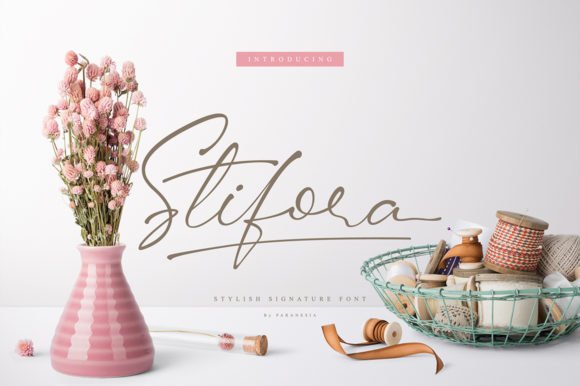
Stifora Script Font
Start a new day with a romantic signature script font. Introducing Stifora Font. Stifora designed and shared by Paranesia. The Stifora is a modern script font. Its classy and will give your design a luxurious feel. It’s perfect for signatures, photography, magazines, titles, book covers, logos, clothing, cards, branding, and every other design that needs a handwritten touch.